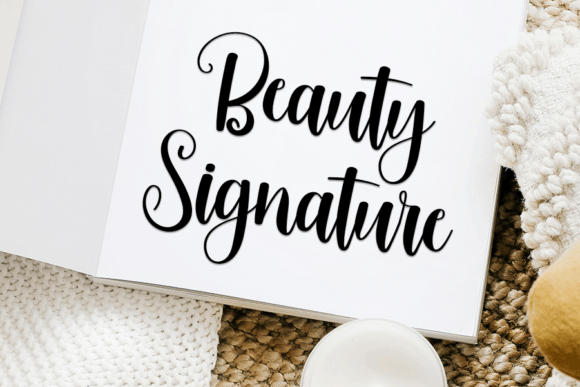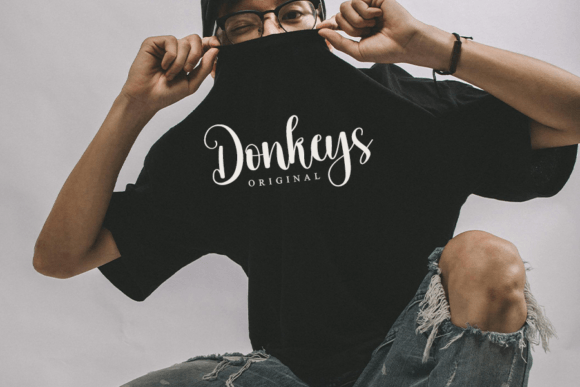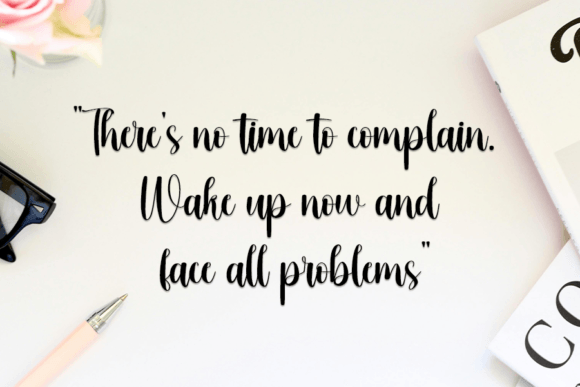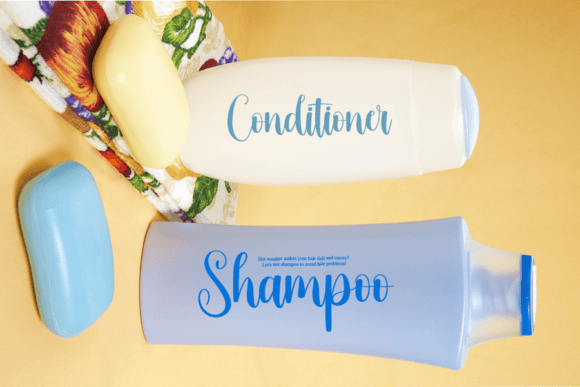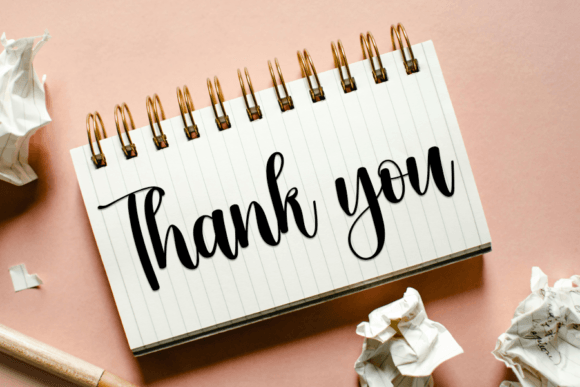
Introducing Donkeys Font: A Delicate Handwritten Font for Unique Designs
Are you a designer or crafter looking for a font that adds a touch of personality to your work? Look no further than Donkeys Font, a delicate handwritten font carefully crafted for a cool and unique design. This versatile font is perfect for a wide range of applications, from writing letters and invitations to labeling food products and creating eye-catching titles.
What Makes Donkeys Font Special?
Donkeys Font is a one-of-a-kind font that stands out from the crowd. Its delicate, handwritten style gives it a personal and intimate feel, making it perfect for designs that require a touch of warmth and personality. The font’s unique character set includes a range of letters, numbers, and punctuation marks, ensuring that you have everything you need to create beautiful and cohesive designs.
Uses for Donkeys Font
Donkeys Font is incredibly versatile, and its uses are endless. Here are just a few ideas to get you started:
- Invitations and Announcements: Use Donkeys Font to create beautiful, hand-written invitations for weddings, birthday parties, and other special occasions.
- Food Labels and Packaging: Add a personal touch to your food labels and packaging with Donkeys Font. It’s perfect for artisanal food producers, bakeries, and specialty food stores.
- Letter Writing: Donkeys Font is perfect for writing letters to friends and loved ones. Add a touch of elegance and sophistication to your correspondence.
- Titles and Headings: Use Donkeys Font to create eye-catching titles and headings for your designs. It’s perfect for posters, flyers, and other marketing materials.
Why Choose Donkeys Font?
There are many fonts to choose from, but Donkeys Font stands out for several reasons:
- Unique and Handcrafted: Donkeys Font is a handcrafted font, carefully designed to ensure that every letter and character is unique and beautiful.
- High-Quality Design: The font is designed with high-quality design principles in mind, ensuring that it looks great in any context.
- Easy to Read: Despite its delicate style, Donkeys Font is easy to read, making it perfect for body text and other applications where legibility is important.
Tips for Using Donkeys Font
Here are a few tips for getting the most out of Donkeys Font:
- Use it Sparingly: Donkeys Font is a delicate font, and it can be overwhelming if used too much. Use it sparingly to add a touch of personality to your designs.
- Experiment with Colors: Donkeys Font looks great in a range of colors, from bold and bright to soft and pastel. Experiment with different colors to find the perfect look for your design.
- Pair it with Other Fonts: Donkeys Font pairs well with other fonts, especially bold and sans-serif fonts. Experiment with different pairings to find the perfect combination for your design.
Donkeys Font is a unique and beautiful font that adds a touch of personality to any design. Its delicate, handwritten style makes it perfect for a wide range of applications, from invitations and food labels to letter writing and titles. With its high-quality design and easy-to-read style, Donkeys Font is a great choice for designers and crafters looking to add a touch of elegance and sophistication to their work.